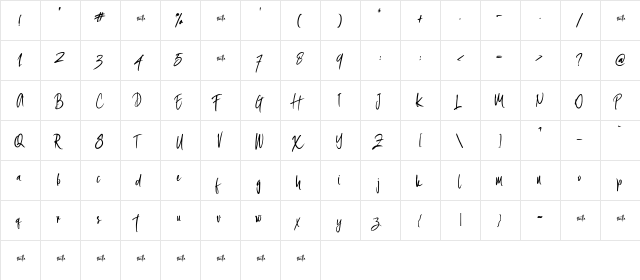
shitta demo script
| Style | script |
| Foundry | Rifan Asri |
| Designer | Best Font Studio |
Design Context for shitta demo Typeface
shitta demo brings a calligraphic fluidity to the page — its connecting strokes and expressive curves give it an unmistakably human quality.